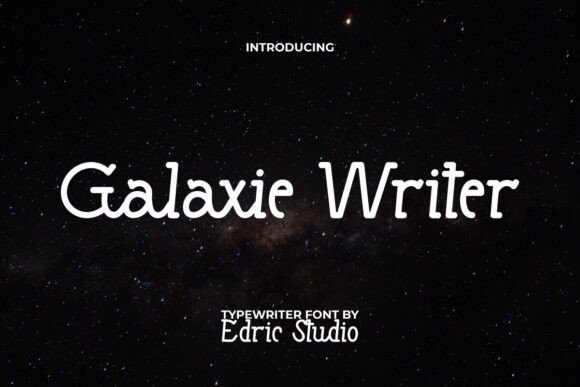
There’s nothing quite like the feeling of sitting down at your desk with a fresh notebook and a pen, ready to dive into a new project. The possibilities are endless, and the words seem to flow effortlessly onto the page. But have you ever found that your font choice can make or break the creative process? A well-chosen font can transport your readers to a different world, evoke emotions, and leave a lasting impression.
That’s where the Galaxie Writer Font comes in – a stylish modern typewriter font that adds a touch of elegance to any project. With its unique combination of modern and vintage elements, this font is perfect for designers looking to add a personal touch to their work. Whether you’re a writer, event organizer, or entrepreneur, the Galaxie Writer Font is an invaluable tool that will help you stand out from the crowd.
Galaxie Writer Font Key Features
- Font Family: Galaxie Writer, a highly legible and elegant font designed for reading and writing.
- Unique Characteristics: Features a unique blend of modern and classic design elements, with subtle serifs and rounded edges for a comfortable reading experience.
- Font Weight: Available in multiple weights, including Light, Regular, Medium, Bold, and Black, allowing users to customize the font’s appearance to suit their needs.
Galaxie Writer Font Review
Overall, I think the Galaxie Writer Font is a solid choice for writers and designers alike. ✨ Here are some of its strengths:
- Legibility: This font is designed with readability in mind, making it perfect for long blocks of text.
- Variety of weights: The font comes in several weights, from light to bold, allowing you to create visual hierarchy and emphasis.
- Classic feel: The Galaxie Writer Font has a timeless, elegant feel that works well in both print and digital applications.
- Lack of modern flair: Some users may find the font’s classic style too conservative or boring.
- Not ideal for display text: While the font works well for body text, it may not be the best choice for headlines or titles.
- May require adjustments for digital use: Depending on the digital application, you may need to adjust the font size or line height to get the best results.
Overall, I think the Galaxie Writer Font is a reliable choice for anyone looking for a clean, readable font. While it may not be the most exciting or modern option, it gets the job done and is easy to work with.
Getting the Most Out of Galaxie Writer Font
For optimal results, use Galaxie Writer Font with headings and body text. This font is best suited for formal or creative writing projects. To enhance readability, use a clear background and sufficient line spacing. Experiment with font sizes and styles to achieve the desired visual effect.
Galaxie Writer Font is ideal for:
– Book covers and interior design
– Magazine and newspaper articles
– Academic and technical writing
– Creative writing and poetry
Alternatives to Galaxie Writer Font for Designers
Merriweather is a classic serif font that is highly legible and suitable for body text. It has a traditional look and feel that works well for books, articles, and other written content. Merriweather is more formal than Galaxie Writer Font and has a more traditional feel.
Comparison: While Galaxie Writer Font is more modern and has a unique style, Merriweather is more traditional and formal. Merriweather is a good choice when you want a classic look and feel.
2. Georgia Font
Georgia is a serif font designed specifically for digital media. It is highly legible on screens and is a good choice for body text. Georgia has a clean and classic look that works well for articles, books, and other written content. Georgia is more straightforward and simple compared to Galaxie Writer Font.